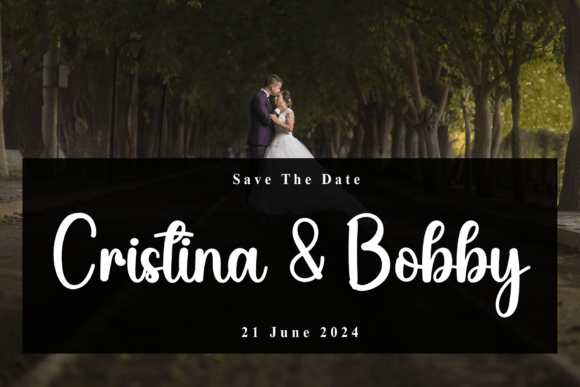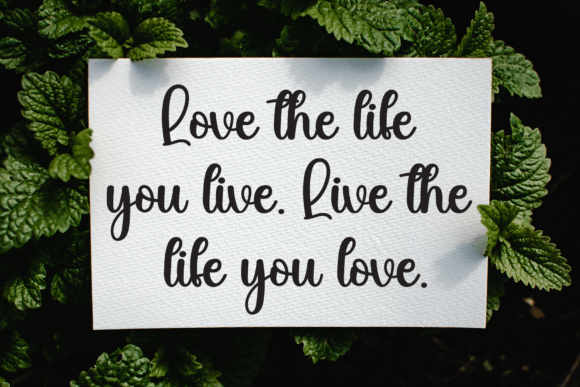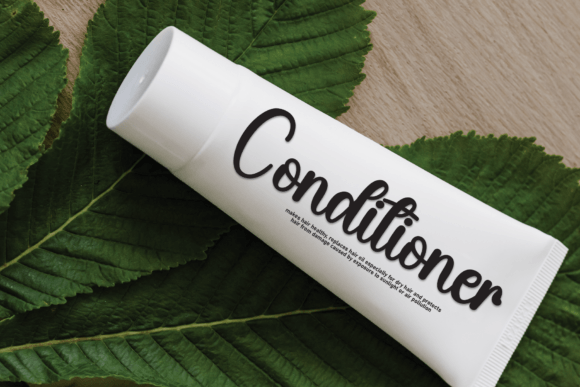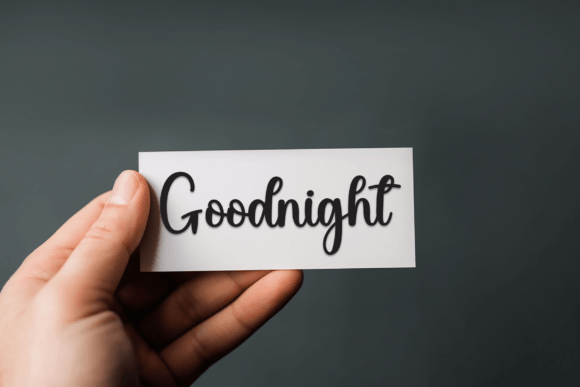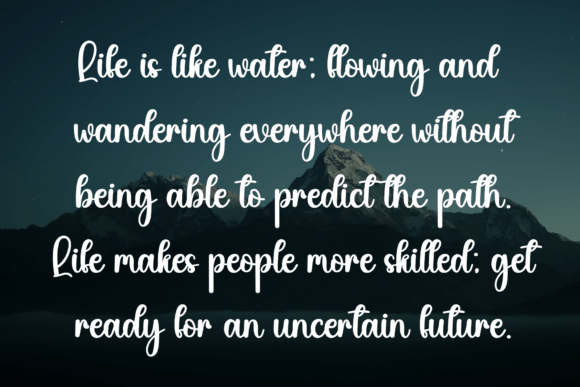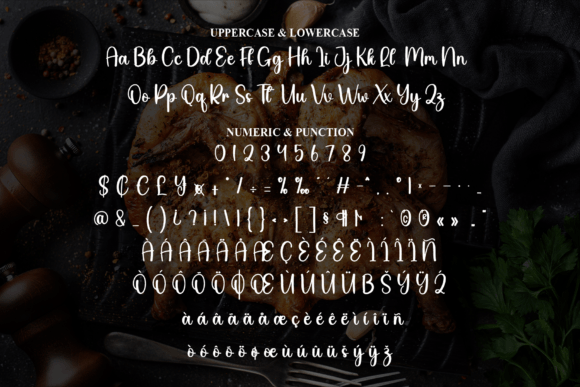
Introducing Grilled Chicken Font: A Sweet and Charming Handwritten Display Font
Are you tired of using the same old fonts for your designs? Look no further! We’re excited to introduce Grilled Chicken Font, a delightful handwritten display font that’s sure to add a touch of whimsy and delight to your creations. With its playful yet cute elegance, this font is perfect for wedding invitations, customized cards, and any design that needs a dash of sweetness and charm.
A Font that Brews Up Delight
Grilled Chicken Font is more than just a font – it’s an experience. Imagine a warm and inviting cup of coffee on a lazy Sunday morning, or a sweet treat that’s sure to put a smile on your face. That’s what this font brings to the table. With its endearing and friendly charm, Grilled Chicken Font is sure to make your designs stand out from the crowd.
Perfect for Wedding Invitations and Customized Cards
Wedding invitations and customized cards are special occasions that deserve a font that’s just as special. Grilled Chicken Font is the perfect choice for couples who want to add a touch of whimsy and romance to their big day. With its playful yet elegant design, this font is sure to set the tone for a joyful and unforgettable celebration.
Breathe Life into Your Designs
Grilled Chicken Font is more than just a font – it’s a way to breathe life into your designs. With its delightful and charming design, this font is sure to add a touch of personality to any project. Whether you’re a designer, crafter, or DIY enthusiast, Grilled Chicken Font is the perfect choice for anyone who wants to infuse their creations with joy and affection.
Infuse Every Stroke of Your Creativity with Joy and Affection
Grilled Chicken Font is all about spreading joy and affection through design. With this font, you can craft delightful moments in every written word. Imagine being able to convey your message with a sense of playfulness and whimsy, while still maintaining a level of elegance and sophistication. That’s what Grilled Chicken Font offers.
Crafting Delightful Moments in Every Written Word
Grilled Chicken Font is the perfect choice for designers and crafters who want to create something truly special. Whether you’re working on a wedding invitation, a customized card, or any other design project, this font is sure to help you craft delightful moments in every written word. With its sweet and charming design, Grilled Chicken Font is the perfect way to add a touch of personality to your creations.
Key Features of Grilled Chicken Font
- Handwritten display font with a playful yet cute elegance
- Perfect for wedding invitations, customized cards, and any design that needs a touch of whimsy and delight
- Endearing and friendly charm that’s sure to make your designs stand out
- Delightful and charming design that’s perfect for infusing your creations with joy and affection
- Craft delightful moments in every written word with this sweet and charming font
Get Ready to Fall in Love with Grilled Chicken Font
If you’re looking for a font that’s sure to capture your heart, look no further than Grilled Chicken Font. With its sweet and charming design, this font is sure to become your new favorite. Whether you’re a designer, crafter, or DIY enthusiast, Grilled Chicken Font is the perfect choice for anyone who wants to add a touch of whimsy and delight to their creations.
In conclusion, Grilled Chicken Font is a must-have for designers and crafters who want to add a touch of sweetness and charm to their creations. With its playful yet elegant design, this font is perfect for wedding invitations, customized cards, and any design that needs a dash of whimsy and delight. So why wait? Get Grilled Chicken Font today and start crafting delightful moments in every written word!